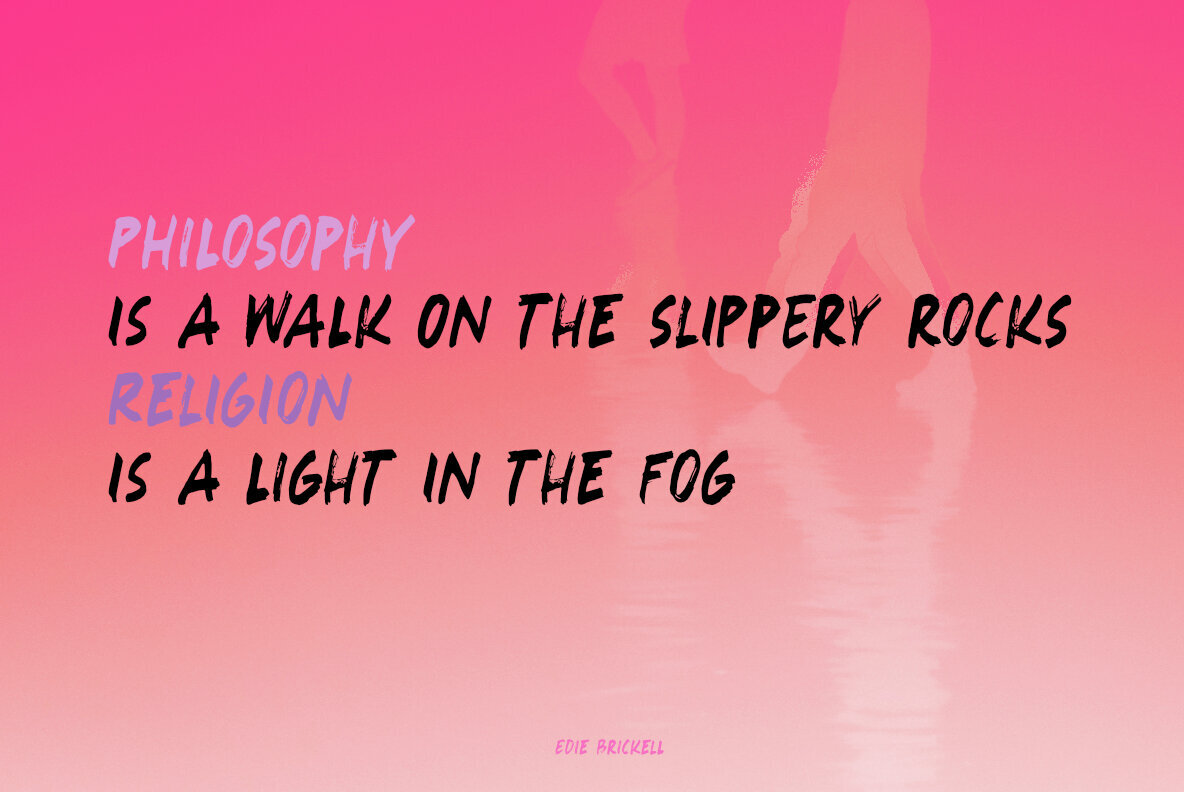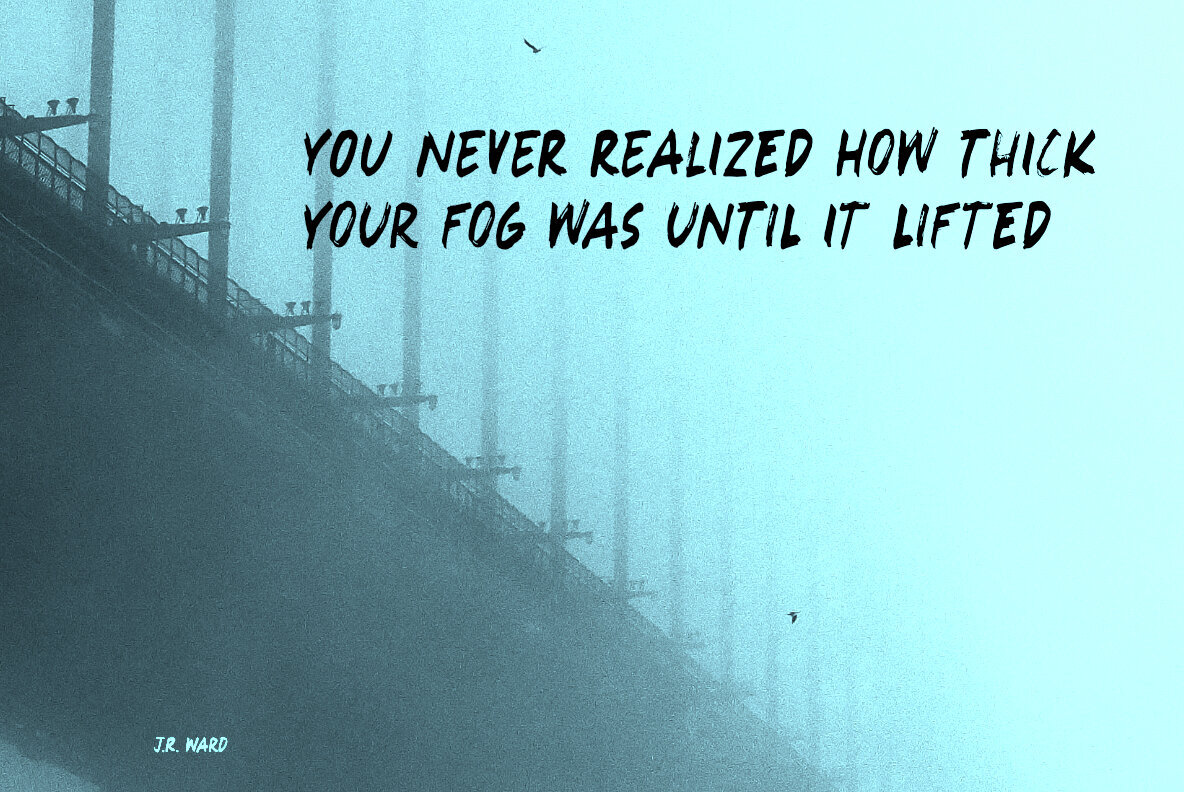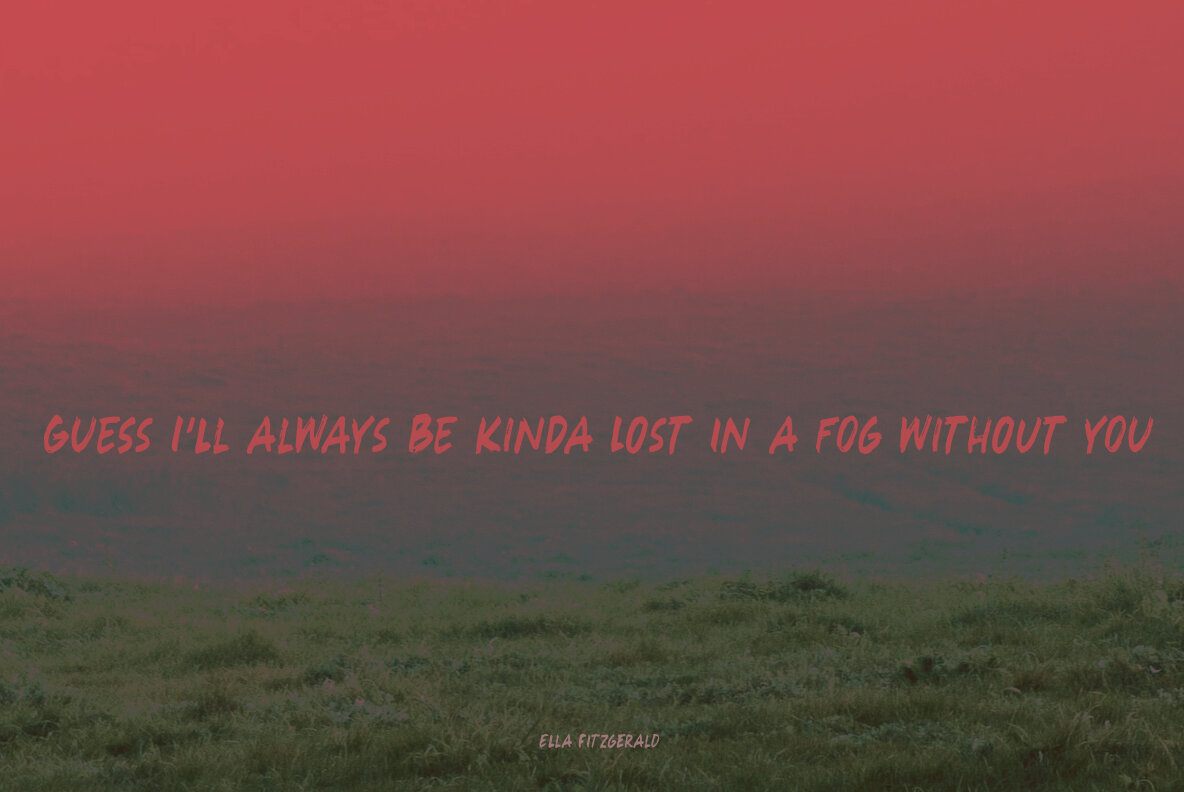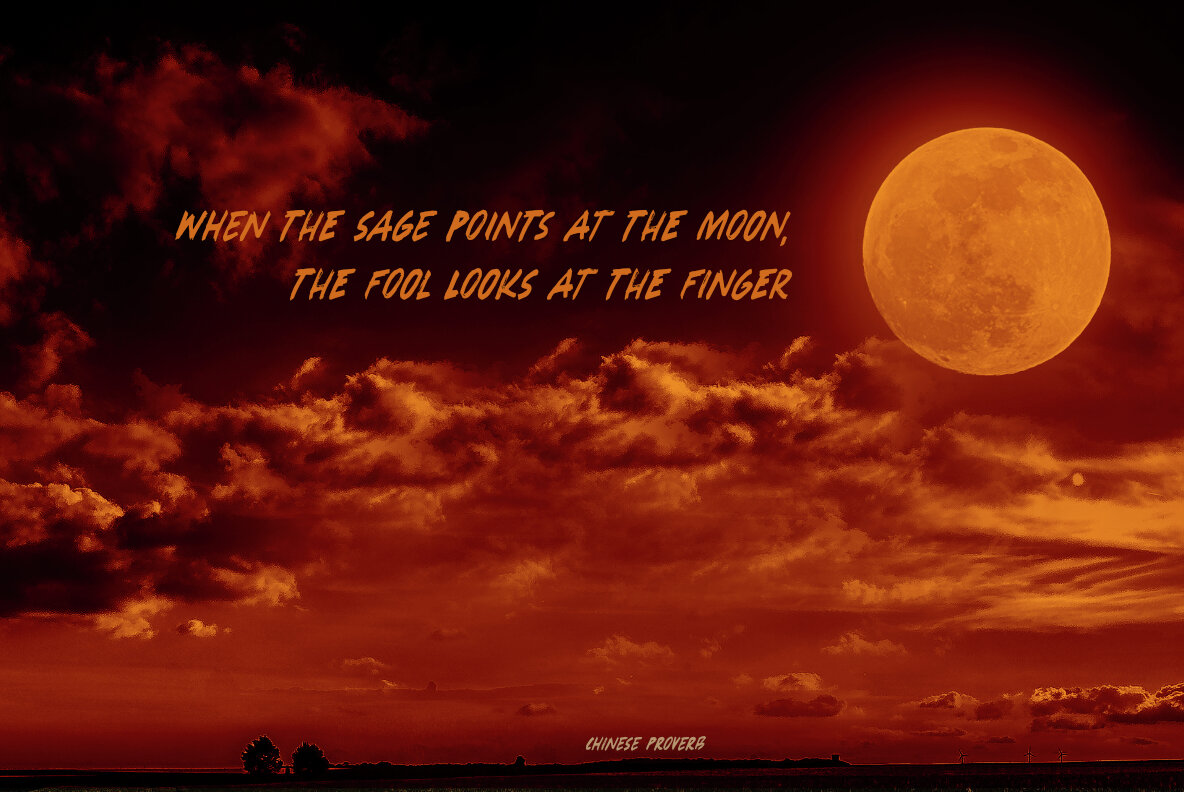
Nebulous Promise Font
Nebulous Promise Regular
Nebulous Promise Italic
This font was called differently when I started out building it, but after a long and insightful conversation with a good friend, I decided to call it Nebulous Promise. Nebulous Promise was made using a broken satay skewer (I like using those!) and Chinese ink. It comes with a full set of alternates for the lower case letters and extensive language support.